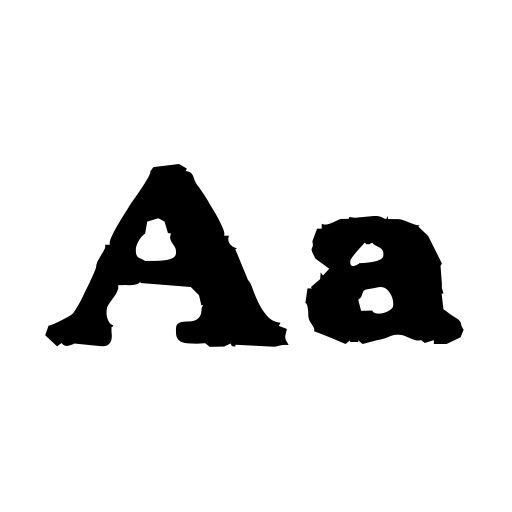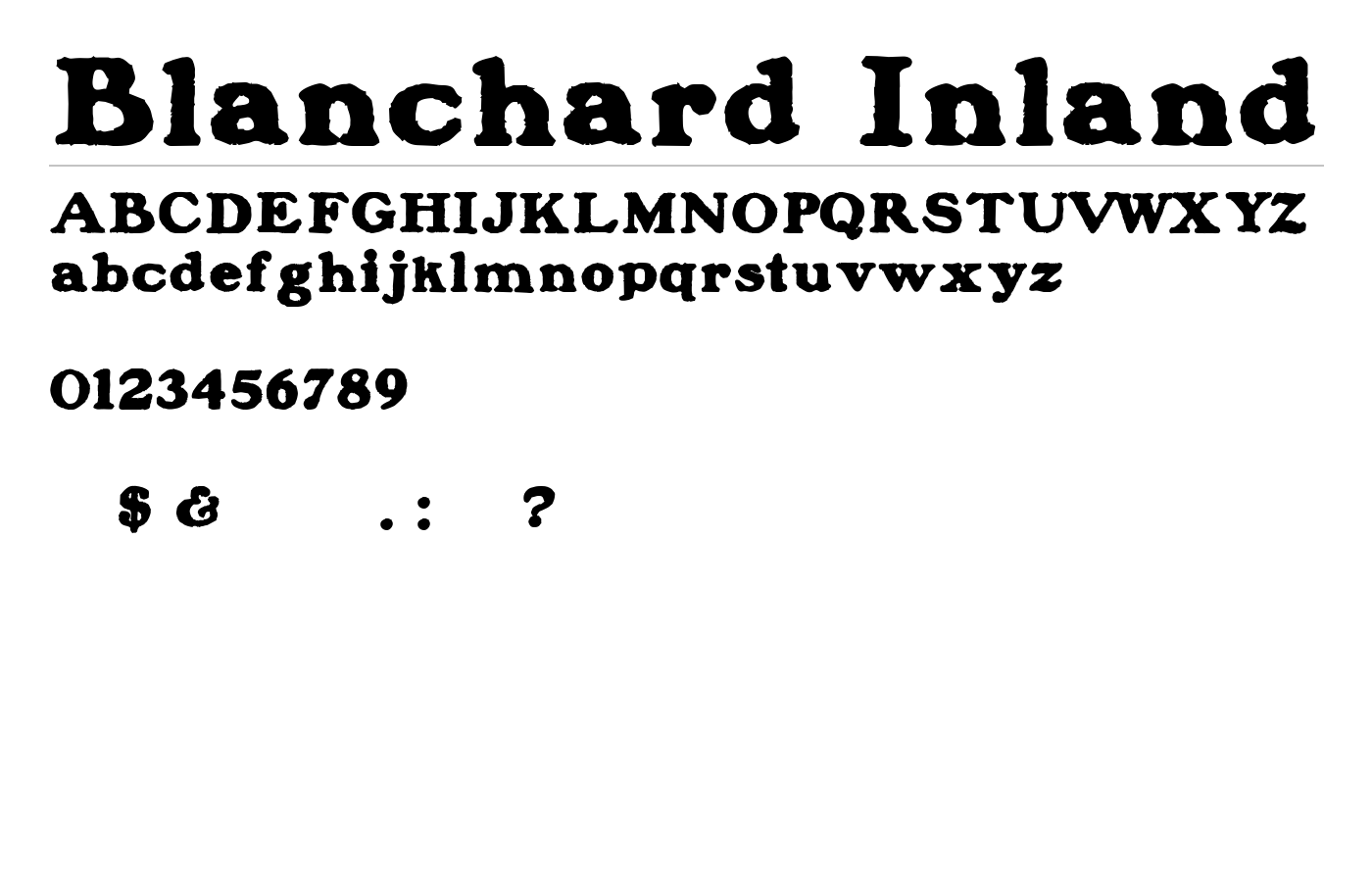
Blanchard Inland is a bold slab serif font with a rugged, vintage texture that evokes a handcrafted, stamped feel. Its sturdy letterforms and strong serifs make it ideal for creating an old-fashioned, rustic atmosphere, perfect for branding, posters, or editorial projects seeking a distinctive, authentic look with personality. This font works best in display settings where its bold presence and unique charm can truly stand out.
Blanchard Inland Font
About Blanchard Inland Font